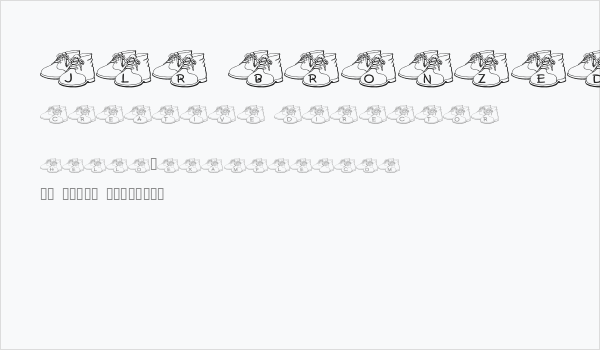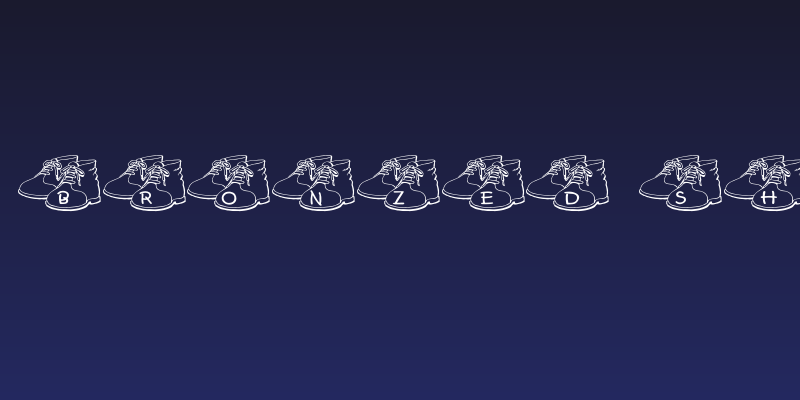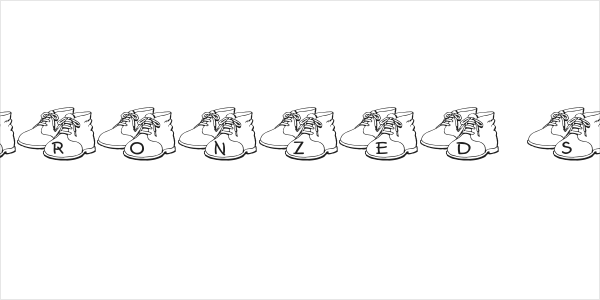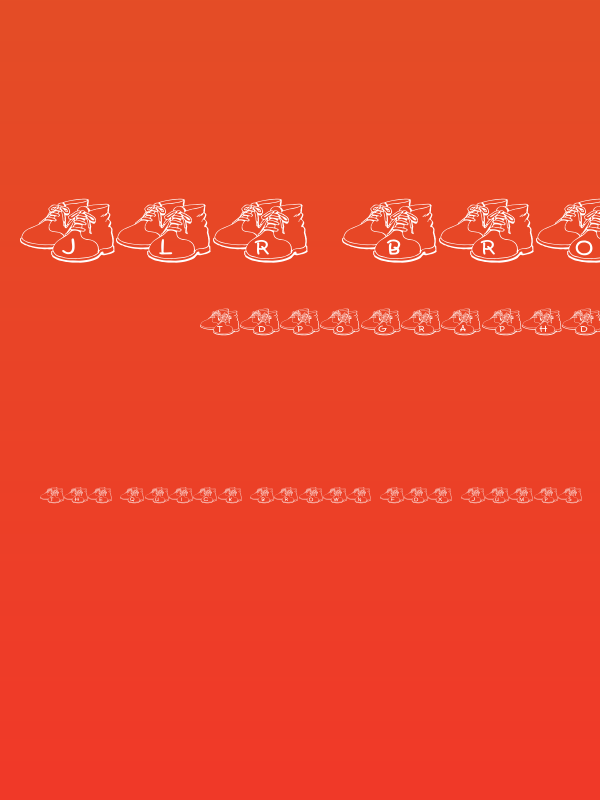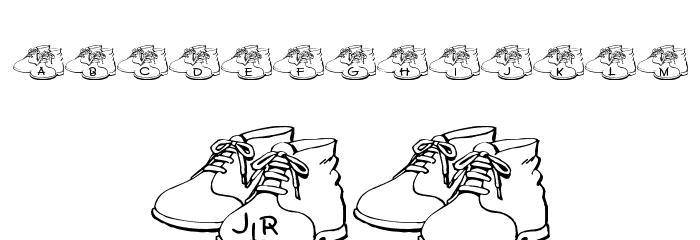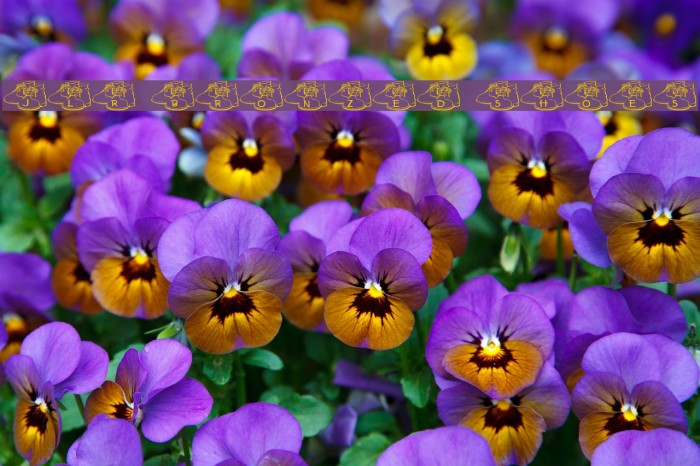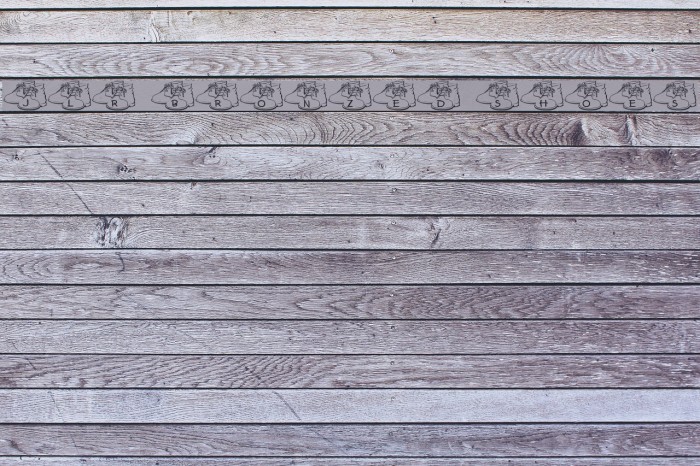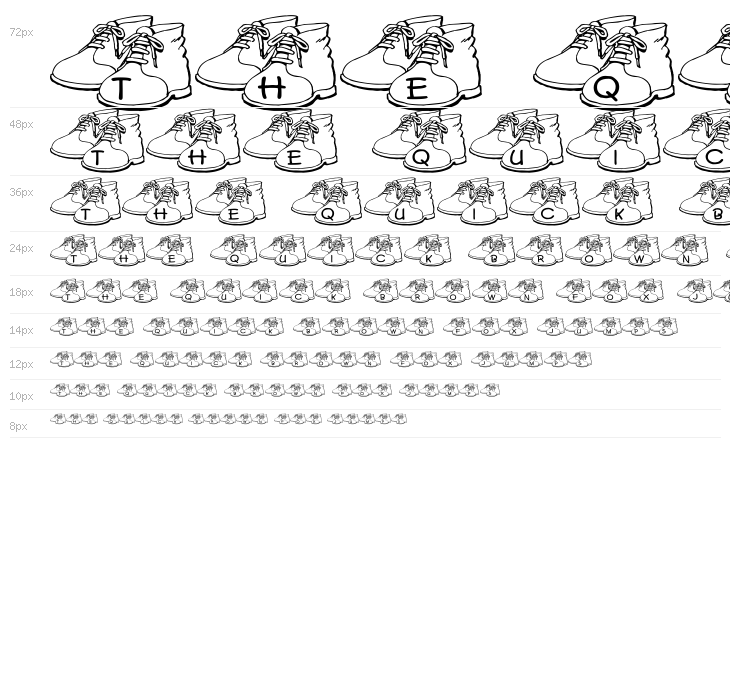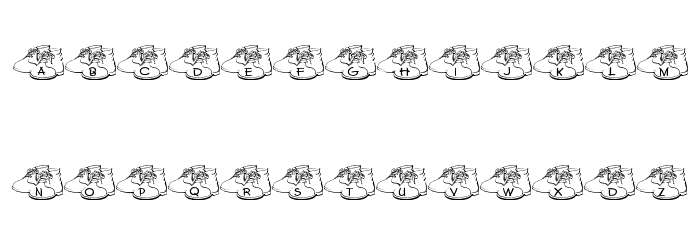
JLR Bronzed Shoes Font
JLR Bronzed Shoes Description
This unique font features each character embedded within a detailed illustration of a bronzed shoe, creating a playful and whimsical aesthetic. The letters are clear and bold, ensuring readability despite the decorative elements. The design is consistent across both uppercase and lowercase letters, as well as numbers and special characters, maintaining a cohesive look. The font's distinct style makes it stand out, offering a creative twist on traditional typography.
| Proposed Projects | Ideal for children's book covers, playful branding, or themed event invitations. |